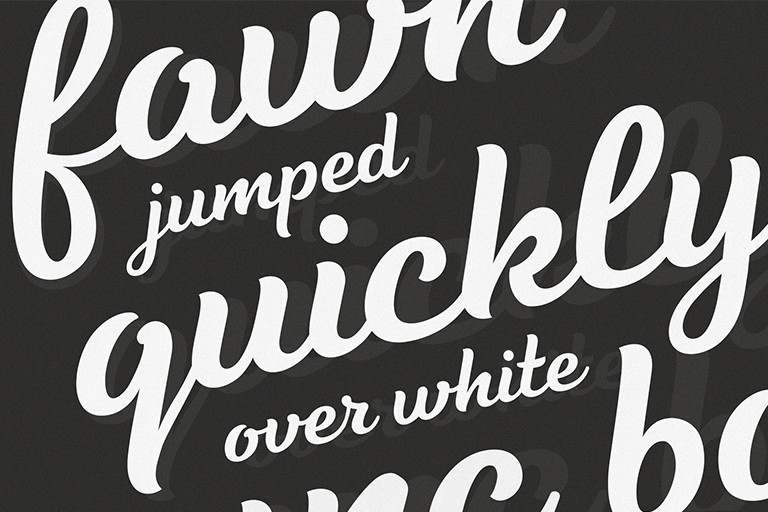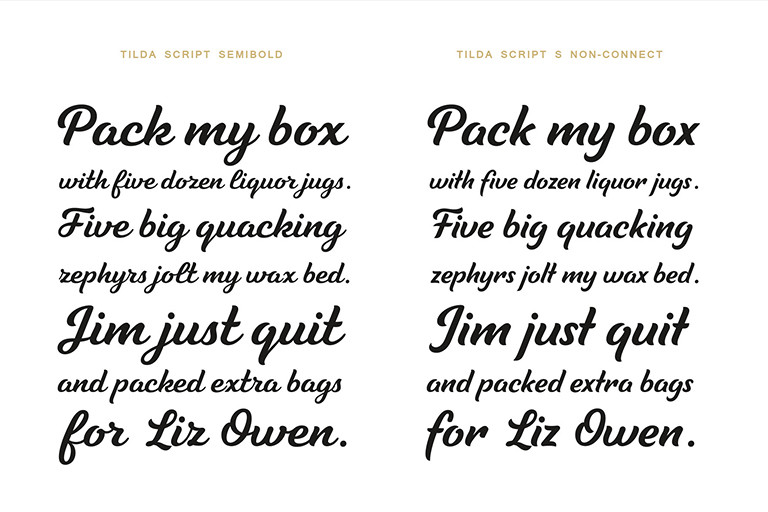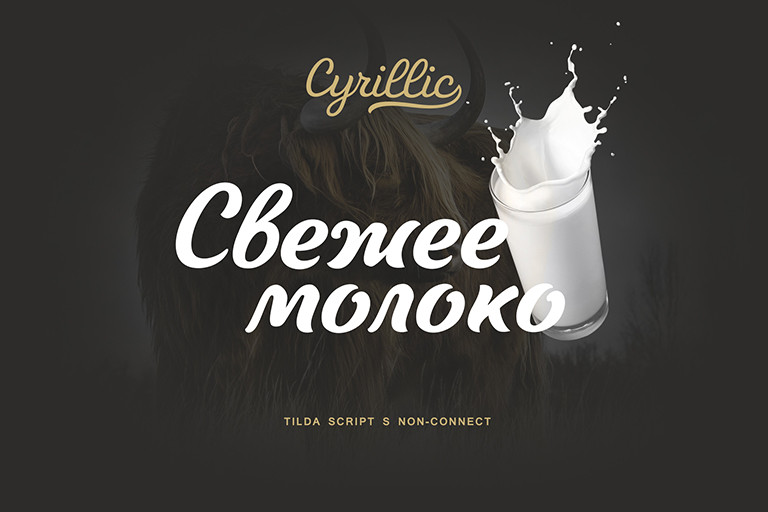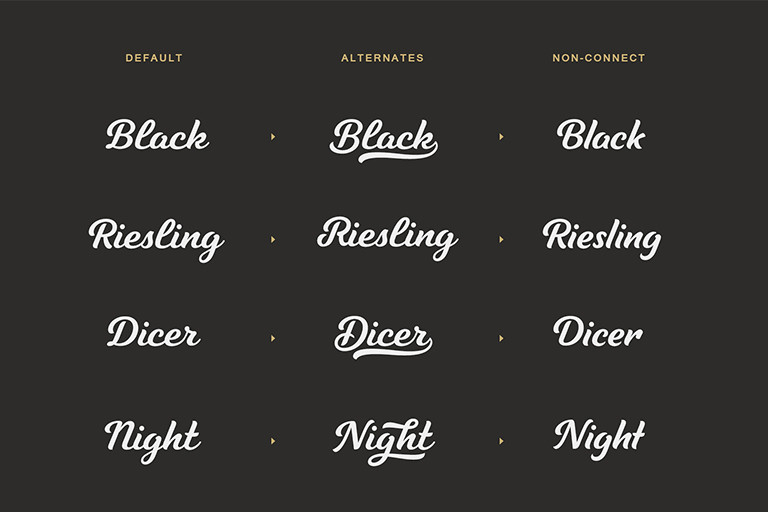
Tilda Script Font
Tilda Script Font Family is a clean and lining script with regular and non-connect versions in four weights.
With this family, you can craft solid logotypes with a unique look, set posters and ads, and even run longer lines of copy on the packaging.